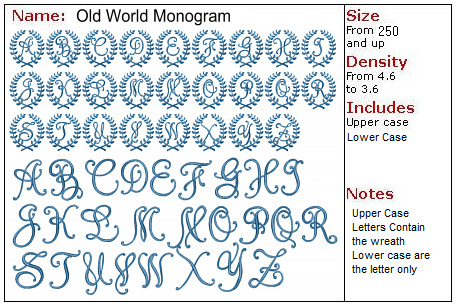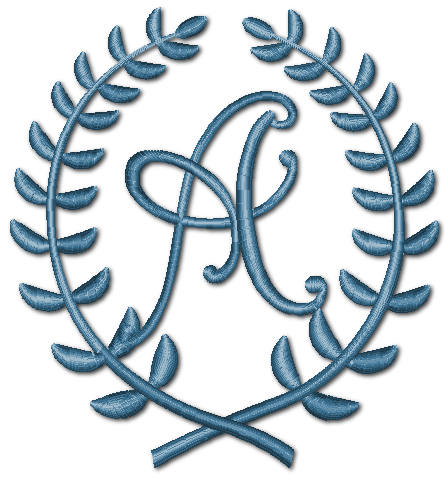
Old World Monogram
This font contains upper case and lower case letters, The upper Case versions contain the Wreath Outline, while the lower case do not.